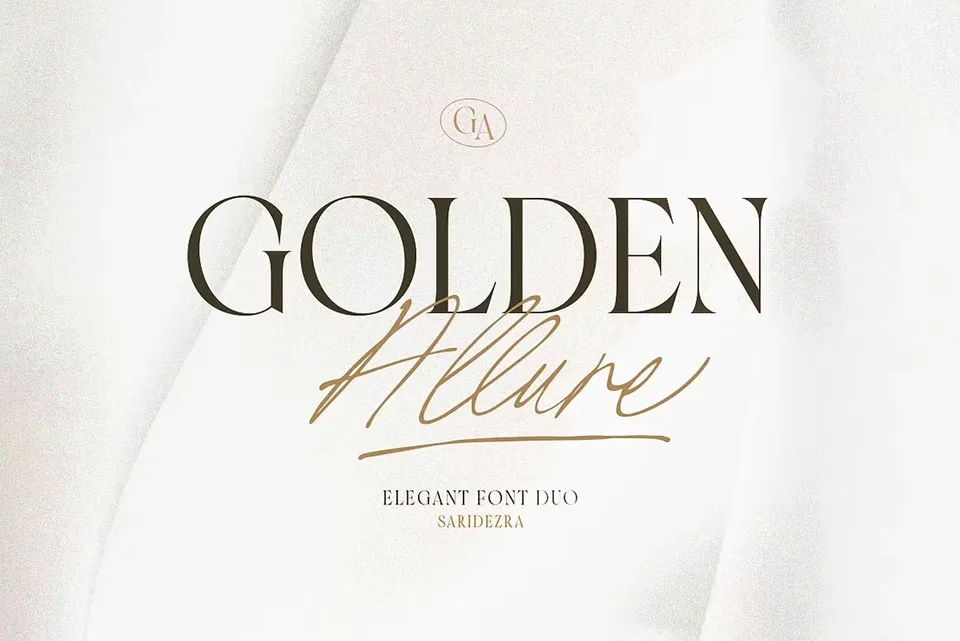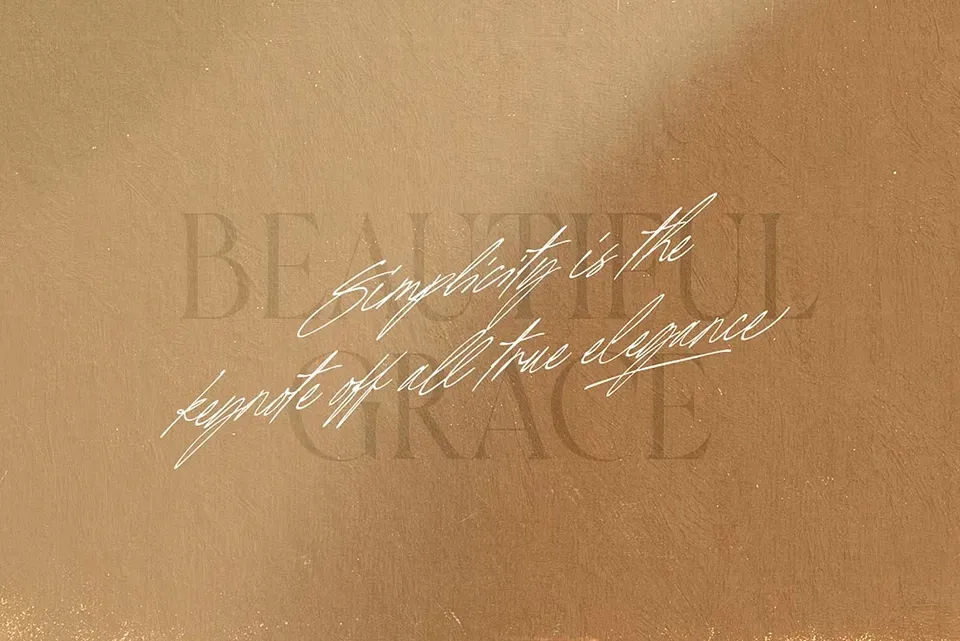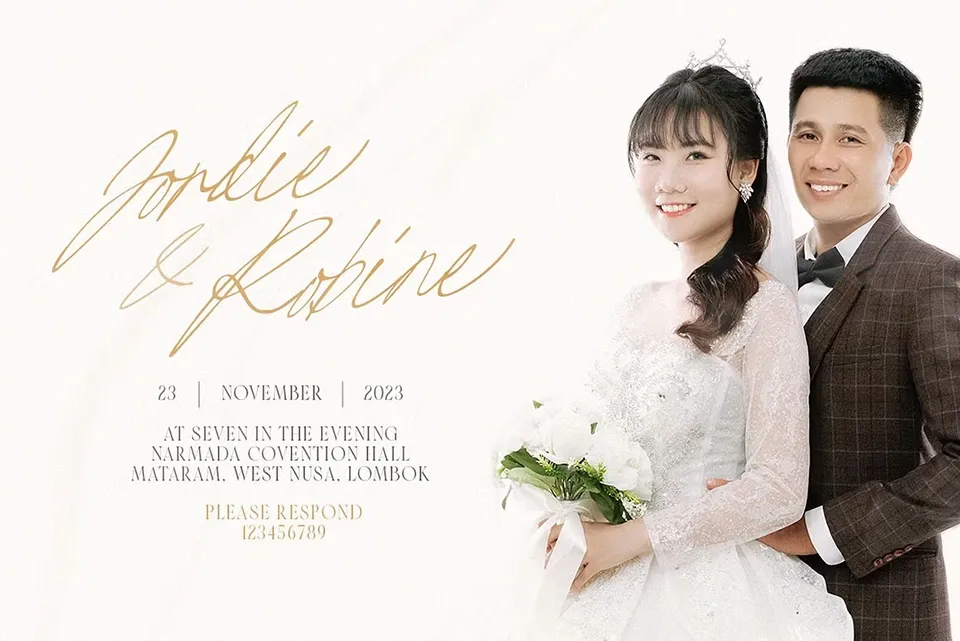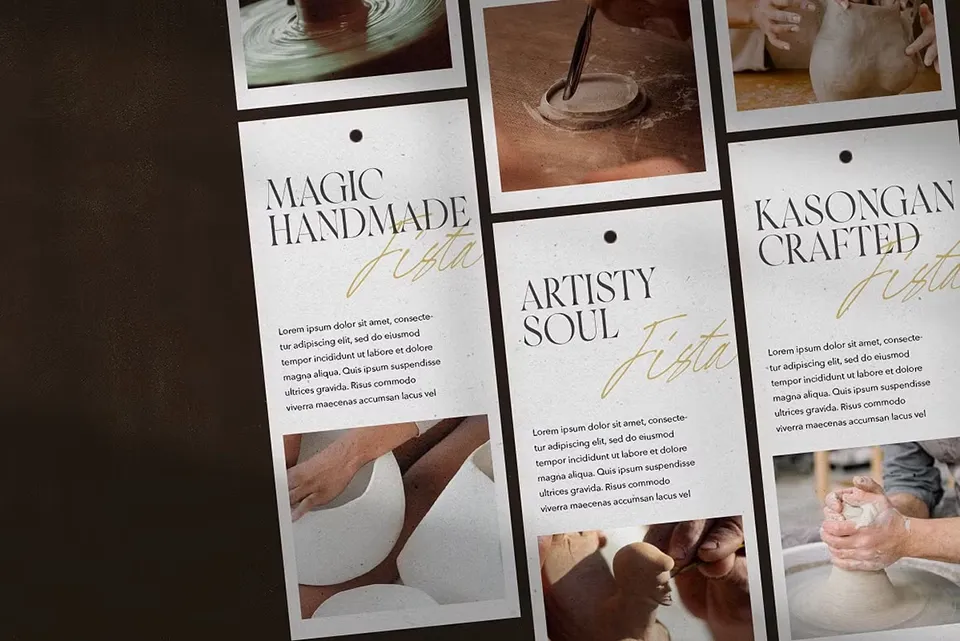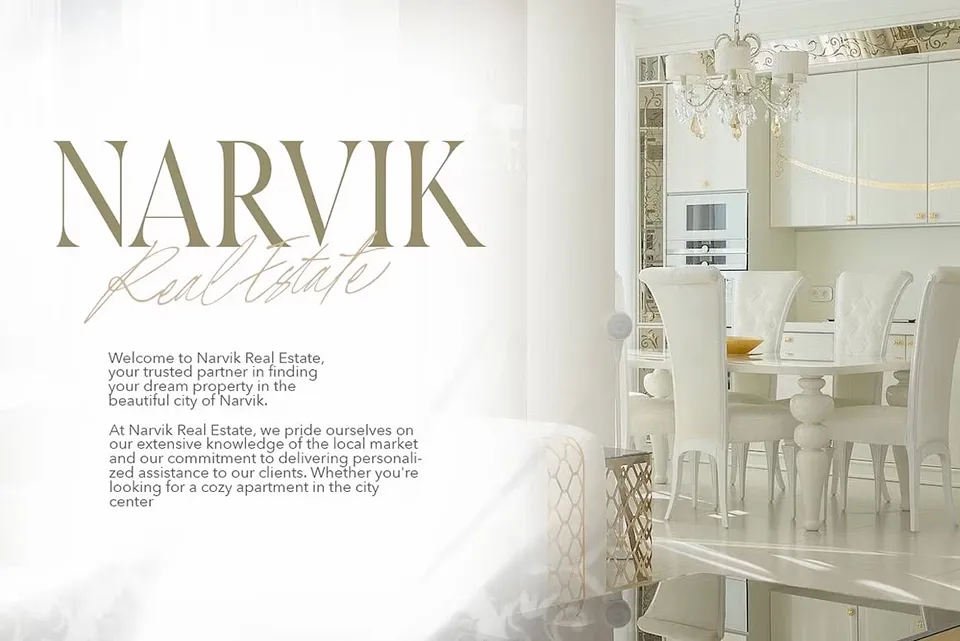
Golden Allure Font
The Golden Allure Font is a fashionable and modern elegant serif font duo, featuring a stylish combination of a classy serif and a handwritten script. Designed by Sarid Ezra, this font duo is perfect for a wide range of creative projects, offering multilingual support, numerals, symbols, end swashes, and many ligatures. Its elegant and versatile style makes it suitable for branding, invitations, logos, and more.
Designed by:Sarid EzraWebsite